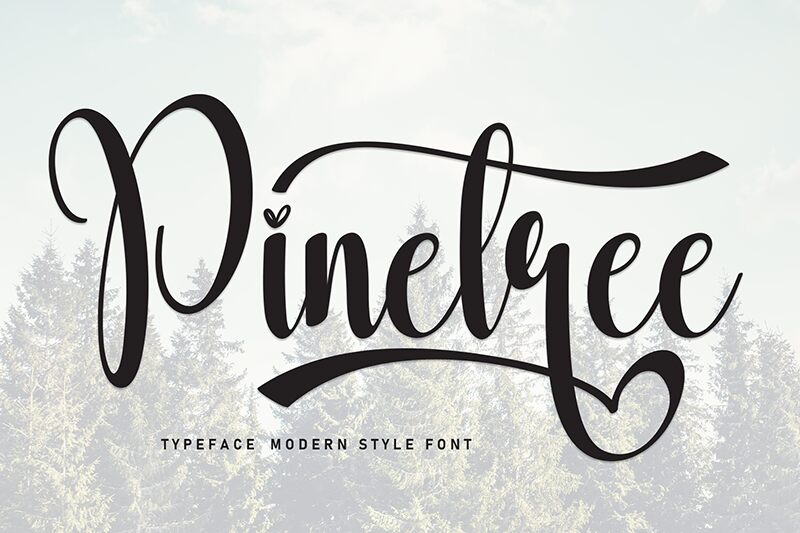
Pinetree
Pinetree font by Scratchones is a graceful modern font with an elegance that brings to surface a more bolder and sophisticated side. Pinetree is the right medium to provide your printed projects with the type of originality and authenticity associated with natural brush strokes used in paintings and artworks.
Naturally, this free brush font works seamlessly with clubs and restaurants menus, identity presentations for hotels, museums, publications or apparel. If you’re designing banners, flyers or brochures for beauty brands or products (haircare lines etc.), integrate this font into the final result as well.